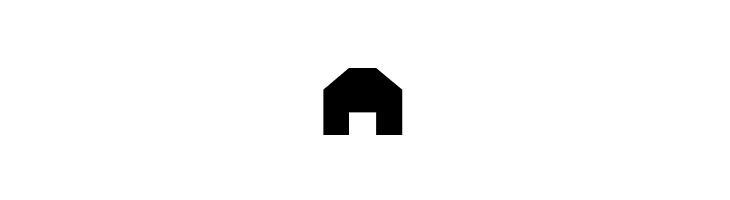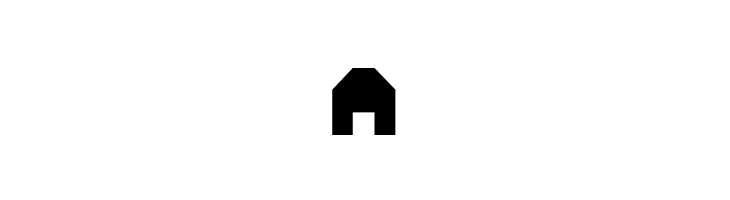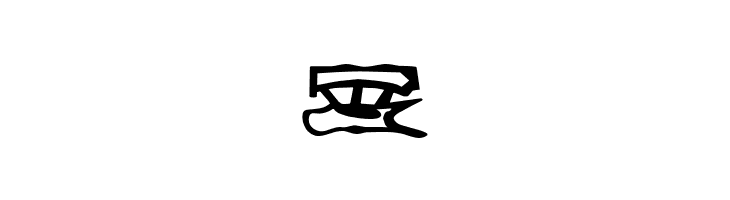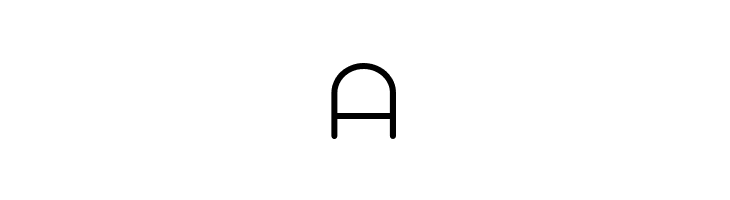
A rounded, semi-bold font with smooth curves and a friendly, modern appearance.
A sleek, modern font with a spiky, extra-light design.
A bold, spiky font with sharp, angular edges for a striking appearance.
A playful, hand-drawn font with a whimsical and friendly appearance.
A futuristic, angular font with sharp edges and geometric forms.
A bold, textured font with a vintage, handcrafted feel.
A bold, serif font with a medieval flair and sharp, angular serifs.
A bold serif font with a classic yet modern design.
A dynamic, brush-stroke inspired font with angular, calligraphic elements.
A bold, playful font with rounded edges and a hand-drawn feel.
A bold, graffiti-inspired font with sharp lines and dynamic flourishes.
A modern, geometric font with bold, clean lines and a slightly condensed style.
A bold, decorative bakery-themed icon set.
A playful, rounded font with a whimsical and creative style.
A bold, rounded typeface with a playful and whimsical style.
A bold and expressive script font with dynamic contrast and fluid strokes.
A bold, expressive script font with a modern and playful style.
A playful, handwritten font with bold, rounded letters and a casual style.
A bold, brushstroke font with an energetic and artistic style.
A bold, modern sans-serif font with clean lines and geometric shapes.
A bold, playful handwritten font with rounded edges and a consistent weight.
A modern, bold font with smooth, rounded edges and consistent stroke width.
A bold, retro font with rounded, bubbly letterforms and a playful, groovy style.
A playful, casual handwritten font with smooth, rounded edges and consistent stroke thickness.
A modern, geometric sans-serif font with rounded edges and balanced spacing.